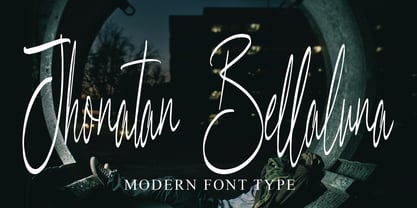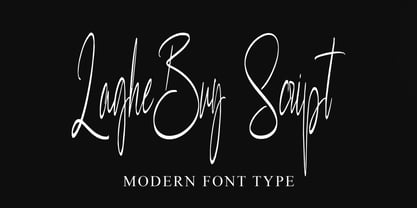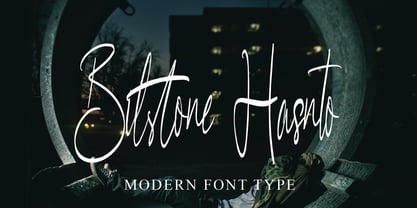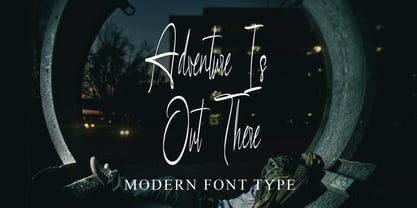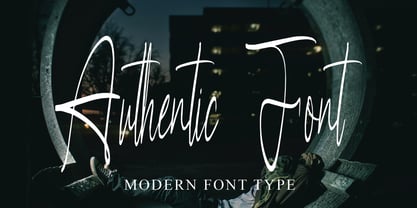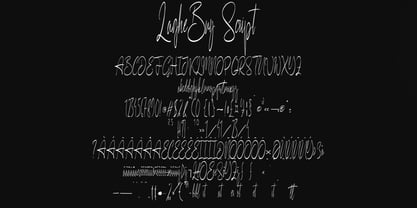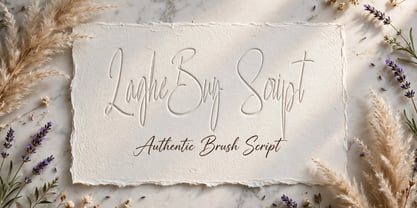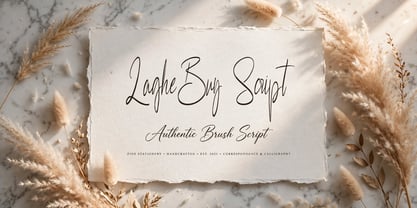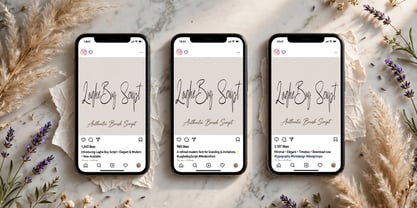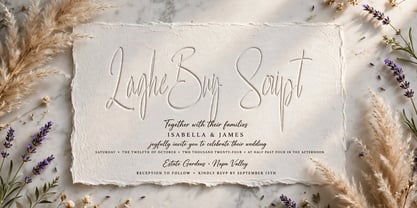
Laghe Buy Script
by Ayska
The Laghe Buy Script Font Family was designed by Dhoni Trihatmoko and published by Ayska. Laghe Buy Script contains 1 styles. More about this family
Experience the bewitching allure of Laghe Buy Script, a flawlessly meshed typeface fusing modern crisps with a charming hand-drawn allure. Every curve and sweep of Laghe Buy Script is meticulously sculpted, radiating a cutting-edge sophistication and charismatic appeal that lends an instant uplift to your creative endeavors. This unrivalled typeface is a prized gem for engaging your blog subscribers, infusing a distinctive charm into your e-journal, injecting vitality into your invitations, or facilitating a profound expression on your custom cards. Bridging the vintage charm of scrapbook artistry and modern design aesthetics specifically tailored for interior fashion, Laghe Buy Script consistently exemplifies versatility. Each use of Laghe Buy Script breathes eclectic artistic flair onto your digital masterpieces. Holding onto its heritage while igniting your creative zeal, this font paves the way for prominent and memorable creations. Tap into the adaptable prowess of Laghe Buy Script, and see your creative visions transform into unique works of art.
Designers: Dhoni Trihatmoko